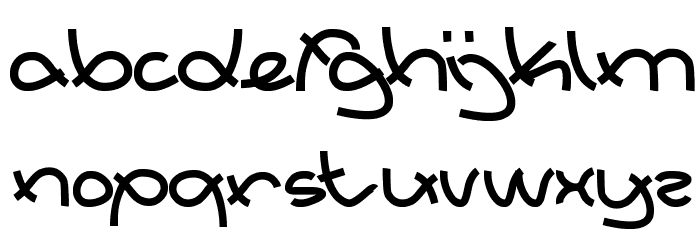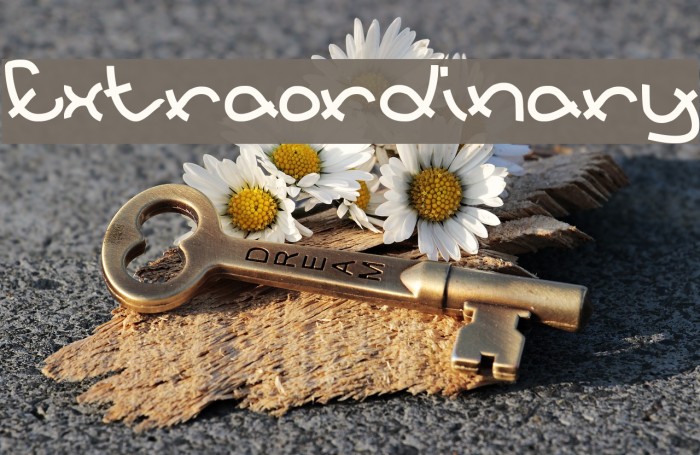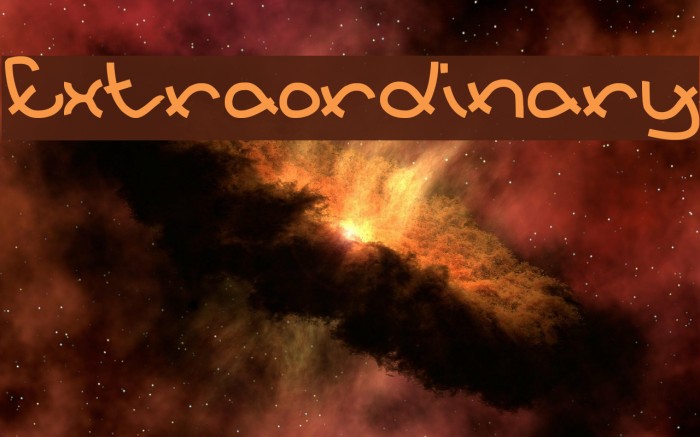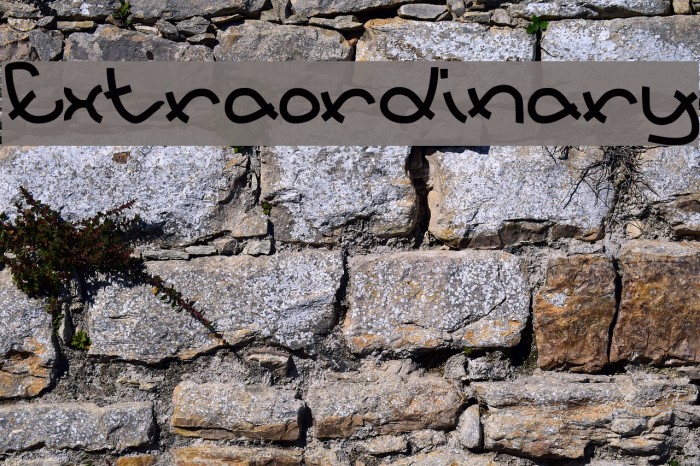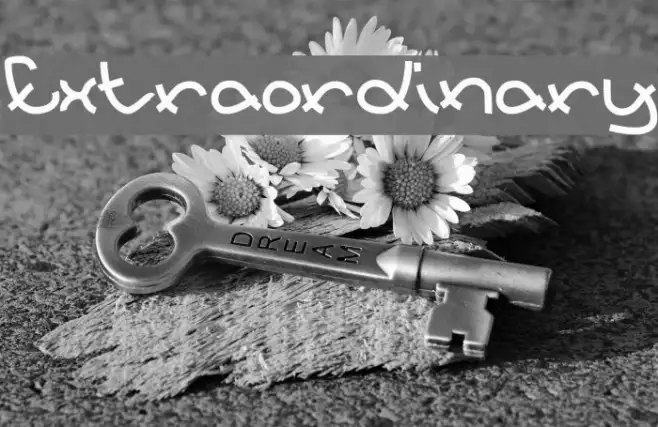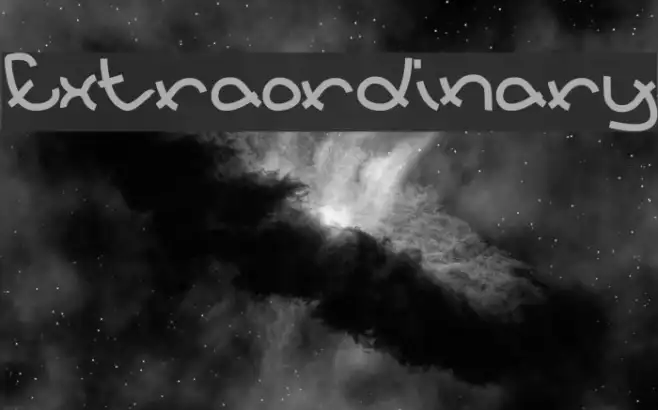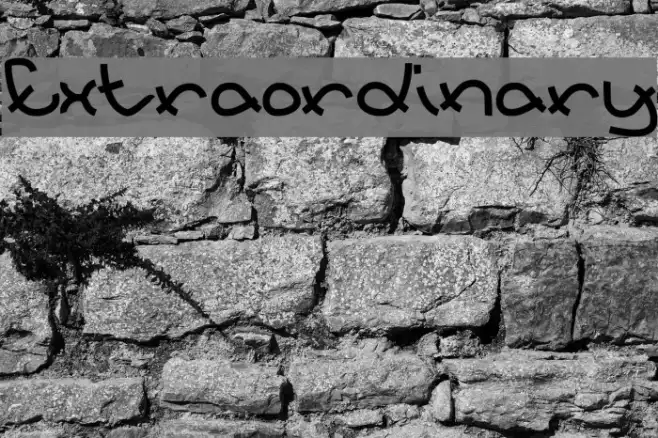
Extraordinary Font
This font features a playful and whimsical design, characterized by its rounded, flowing lines and slightly irregular shapes. The letters have a hand-drawn appearance, giving them a casual and friendly feel. The uppercase and lowercase letters maintain a consistent style, with some letters exhibiting unique loops and curves that add to the font's charm. The overall look is informal and approachable, making it suitable for creative and lighthearted projects.
A playful, hand-drawn font with rounded, flowing lines and a whimsical style.
- Proposed Projects: Ideal for children's books, greeting cards, playful branding, and casual invitations.
- Category: Handwritten
- Overall Style: Casual
- Use Case: Headlines, Logos, Creative projects